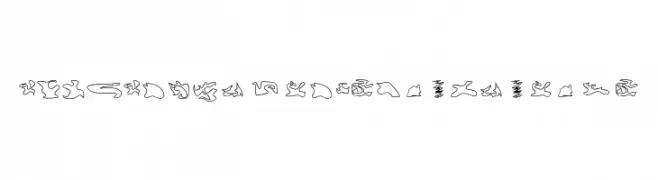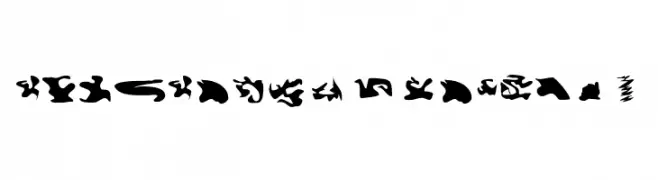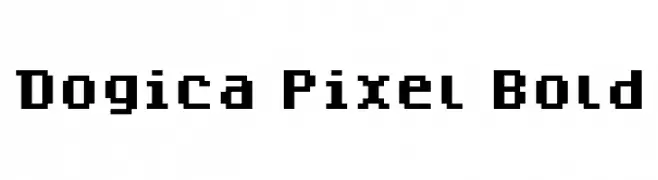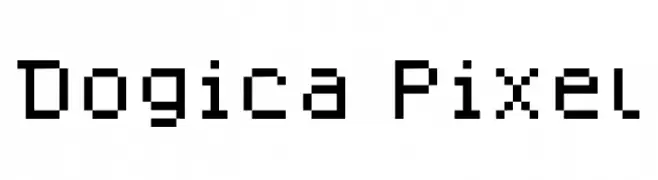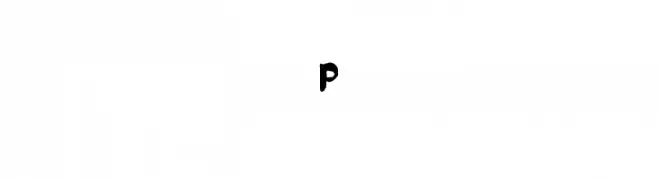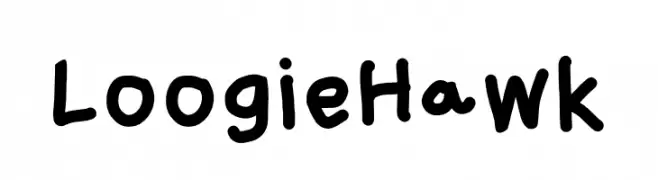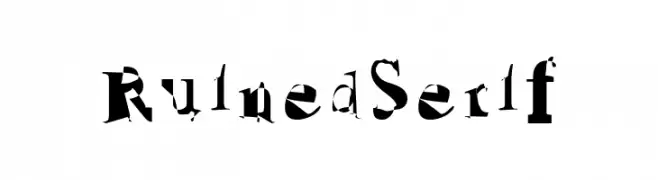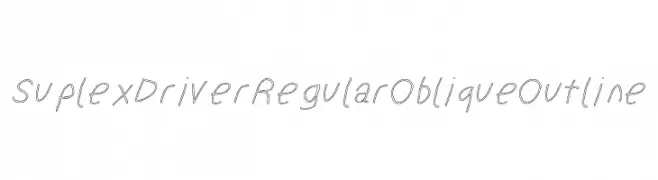
A bold, pixelated font with a retro digital aesthetic.
A pixelated, retro font with a blocky, geometric style.
A bold, playful font with a hand-drawn, casual style.
A playful, oblique handwritten font with smooth, flowing lines.
A playful, handwritten font with a casual and friendly vibe.
A playful, hand-drawn font with bold, rounded characters and a whimsical style.
A distressed serif font with a fragmented, artistic style.
An abstract, camouflage-inspired font with fluid, organic outlines.
An abstract, camouflage-inspired decorative font with bold, irregular shapes.
A playful, hand-drawn outlined font with an oblique style.